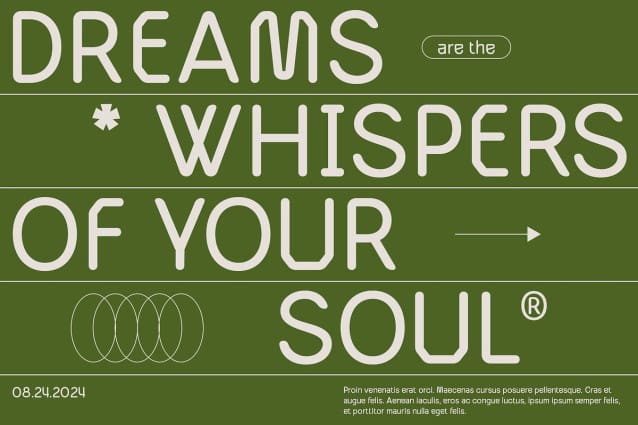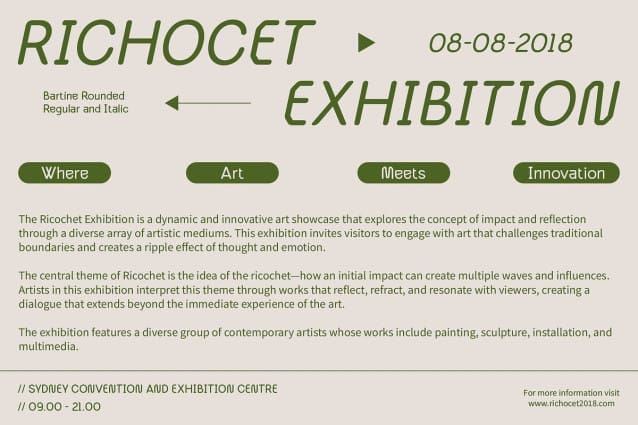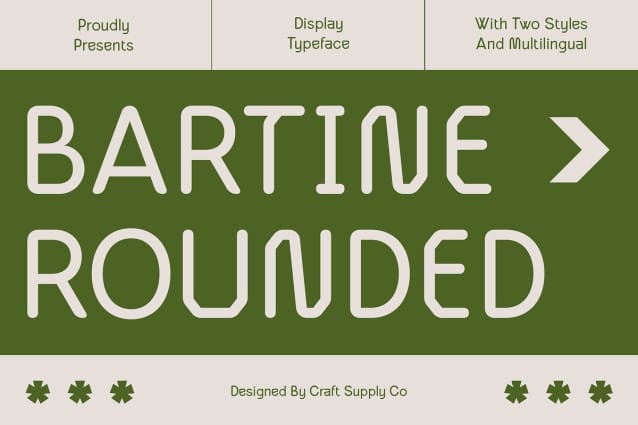
Bartine Rounded Font
Bartine Rounded Font is a modern sans-serif font that masterfully combines the clean, approachable aesthetics of rounded forms with the strength and boldness of industrial design. The rounded shapes lend the font a softer, more inviting appearance, while the industrial elements ensure a sense of solidity and functionality.
Balanced Aesthetics for Modern Professionalism This font strikes the perfect balance between modern style and professional vibes, making it ideal for tech branding, packaging design, and industrial signage. Bartine Rounded offers a contemporary look that is both strong and accessible, delivering a trustworthy appearance in any design context.
Perfect for Versatile Design Applications Bartine Rounded is versatile enough to be used across a wide range of design applications. Whether you’re creating tech-related branding, sleek packaging, or robust signage, this font combines modern elegance with a subtle industrial edge, making it an excellent choice for designs that require both strength and approachability.